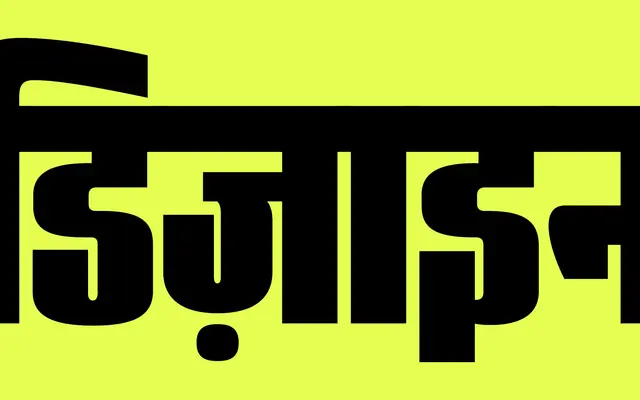
Heading Deva
Zetafonts · Shrishti Vajpai, Francesco Canovaro, Cosimo Lorenzo Pancini, Andrea Tartarelli · 2023
A Devanagari extension of the Heading superfamily, bringing its industrial grotesque structure across eight weights and eight widths to Hindi and other Devanagari-script languages.
Designed by Shrishti Vajpai as an expansion of the Heading superfamily originally created by Francesco Canovaro, Cosimo Lorenzo Pancini and Andrea Tartarelli, Heading Deva applies the same industrial grotesque skeleton to Devanagari. The family spans 64 static styles across eight weights from Thin to Heavy and eight widths from Ultracompressed to Wide, plus a variable font covering both axes. Script coverage extends to Latin, Cyrillic and Greek alongside Devanagari, supporting over 220 languages.
An industrial grotesque extended to Devanagari script, sharing the same skeletal structure and weight-width system as the Latin Heading superfamily. Classified as grotesque due to its bold, industrial character and absence of calligraphic influence.